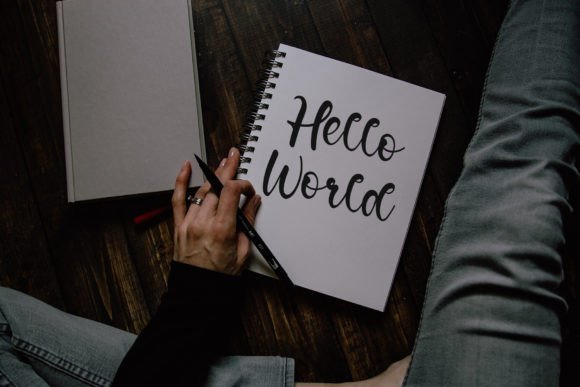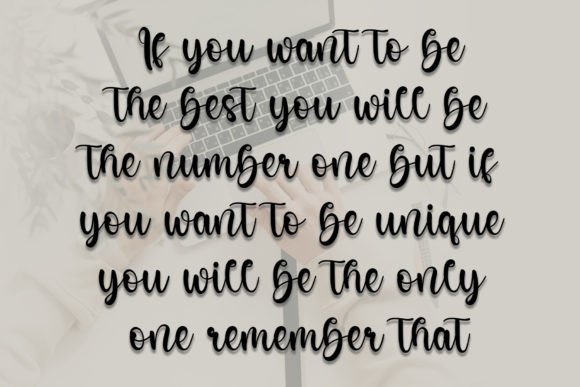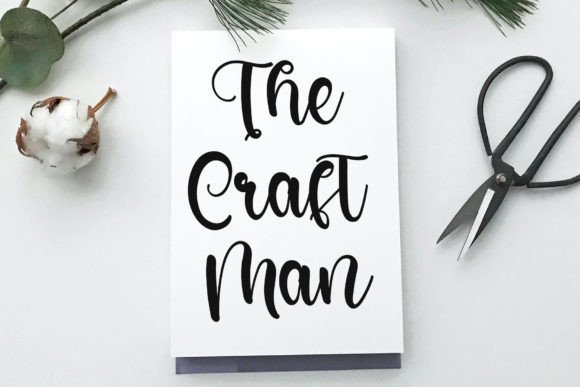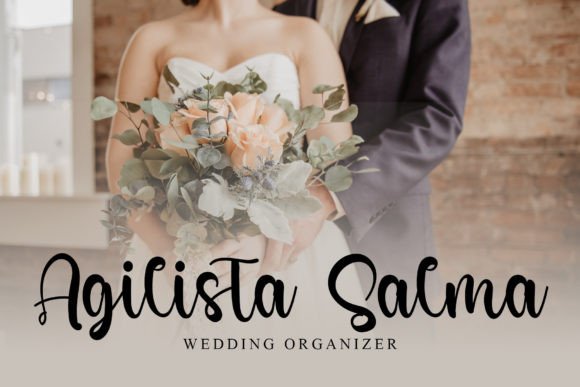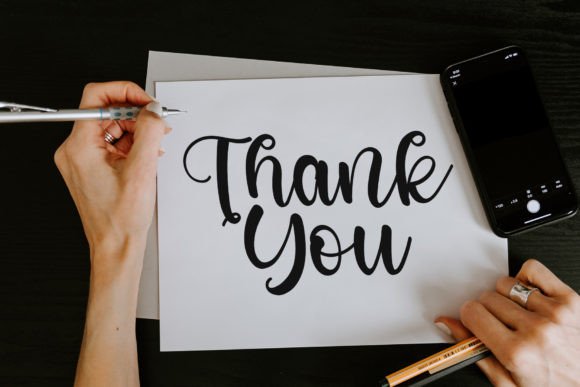
Bustling Font: Elevate Your Designs with a Stylish and Dainty Script
In the world of typography, a well-chosen font can make all the difference in the success of a design project. Whether you’re a seasoned designer or a crafty DIY enthusiast, having the right font at your disposal can elevate your work from ordinary to extraordinary. This is where Bustling Font comes in – a beautiful, stylish, and dainty script font that’s perfect for a wide range of projects.
What is Bustling Font?
Bustling Font is a stunning script font that exudes elegance and sophistication. Its intricate and flowing lines make it an ideal choice for designers and crafters looking to add a touch of refinement to their work. This font is not just aesthetically pleasing; it’s also highly versatile, making it suitable for various applications.
What Projects is Bustling Font Suitable For?
The possibilities are endless with Bustling Font. Its stylish and dainty design makes it perfect for:
- Logos: Create a lasting impression with a custom logo that showcases your brand’s personality.
- Branding Projects: Develop a cohesive brand identity with Bustling Font as your go-to script font.
- Labels: Add a touch of elegance to your product labels, making them stand out on store shelves.
- Photography: Use Bustling Font to create beautiful watermarks or add text to your photos.
- Special Events: Make your event invitations, programs, or decorations truly special with this lovely script font.
- Other Projects: From stationery to packaging, Bustling Font is the perfect choice for any project that requires a beautiful script taste.
The Benefits of Bustling Font
Bustling Font offers several benefits that make it a top choice among designers and crafters:
- PUA Encoded: This font is PUA (Private Use Area) encoded, which means you can easily access all the glyphs and swashes, giving you maximum flexibility and creative control.
- High-Quality Design: The font is designed with precision and attention to detail, ensuring that it looks great in any context.
Tips for Using Bustling Font Effectively
To get the most out of Bustling Font, consider the following tips:
- Pair it with Other Fonts: Combine Bustling Font with complementary fonts to create visual interest and hierarchy in your designs.
- Experiment with Sizes and Colors: Play around with different font sizes and colors to add depth and personality to your work.
- Use Swashes and Glyphs: Take advantage of the font’s PUA encoding to access a wide range of swashes and glyphs, adding a personal touch to your designs.